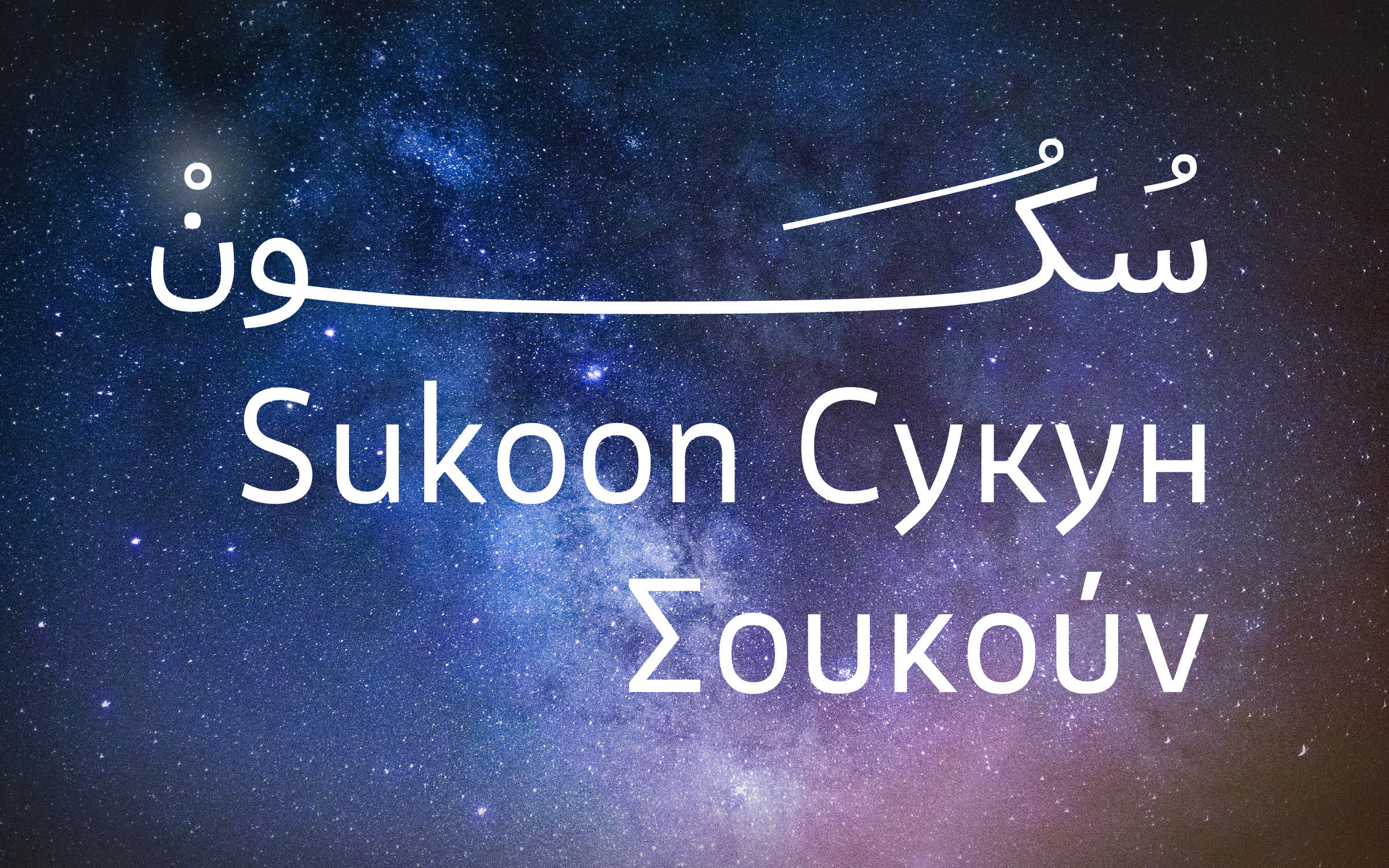
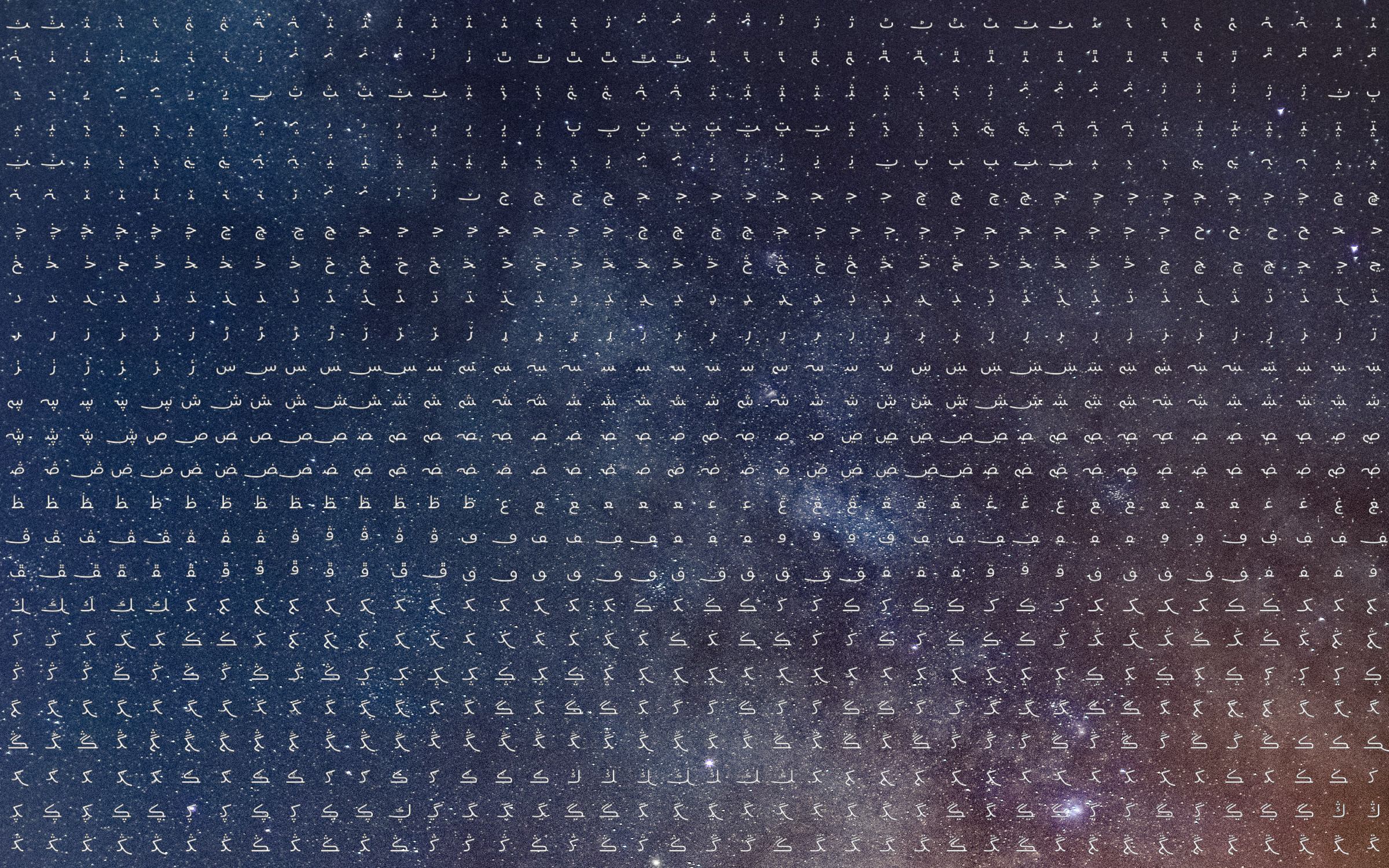 | | Yanone’s comprehensive Sukoon typeface will be joining the Fontwerk family soon. (Photos by Andy Holmes on Unsplash) | |
| | Introducing SukoonImbued with a sense of clarity, beauty and tranquillity the gorgeous sans serif, Sukoon by Yanone will be joining the Fontwerk family soon. The name Sukoon is the Arabic word for rest or stillness and reflects the sense of inner peace that its designer wanted to instil in the design. It’s a perfect fit for any branding or visual identity project and also offers comprehensive language support. Yanone is the designer of the highly popular and very beloved free font Kaffeesatz and FF Amman and he was the brains behind the design of FF DIN Arabic. On our journey to create fonts that speak many languages, Sukoon will be the second typeface (alongside Pangea) that supports Arabic, Cyrillic and Greek. If you fancy trying some beta fonts, do get in touch. | |
| | The MANA range is just as minimalist as its corporate design: T-shirts, sweatshirts, hoodies and jogging pants. | |
| | Forward-thinking fashion with first-class fontsBased in London, the fashion label MANA was set up by founders Avneet and Sunny as an alternative to fast fashion. At the heart of their business is a mission to create a better, more sustainable future for fashion. Through the use of sustainable materials and a responsible manufacturing process, they are determined to do things differently. MANA choice of corporate fonts is also very much on trend and on Brand. They use both Pangea (Regular and SemiBold) and Pangea Text (Light). The Pangea Collection chimes with MANA’s design taste and sustainability mission and both Christoph Koeberlin (the designer of Pangea) and the founders of MANA, donate a portion of their proceeds to charitable causes. | |
| | As her website is 90 percent text, the visual identity of the Andrea Grudda brand is primarily influenced by Nikolai’s identity. | |
| | Striking type-led identity for Andrea GruddaAs a leading Strategist, Author and Keynote Speaker, Andrea Grudda works with companies to transform the way that they work. She’s also a teacher of Trend Management at the European Media and Business Academy (EMBA) in Düsseldorf and a member of the board of the Flexible Working World Foundation. Her transformative and original approach to work is also reflected in her new website which is designed by the Düsseldorf-based studio vista. Featuring our very own Nikolai as the font of choice, the unusual design, striking color palette and wonderful choice of typography make her brand and website really stand out. Nikolai was created in 2020 by the Italian designer, Franziska Weitgruber. While Nikolai’s roots lie in the Renaissance, during the course of its creation it has clearly evolved in a more contemporary direction | |
‘Hello, type friends!’ is a brand new podcast from our friend and type aficionado Elliot Jay Stocks. Featuring the good and the great from the world of type, it’s like having a virtual pint with some good friends who also happen to like type. The first episode features the truly wonderful lettering artist, designer, illustrator, and author Jessica Hische and we highly recommend subscribing now! ↗ |